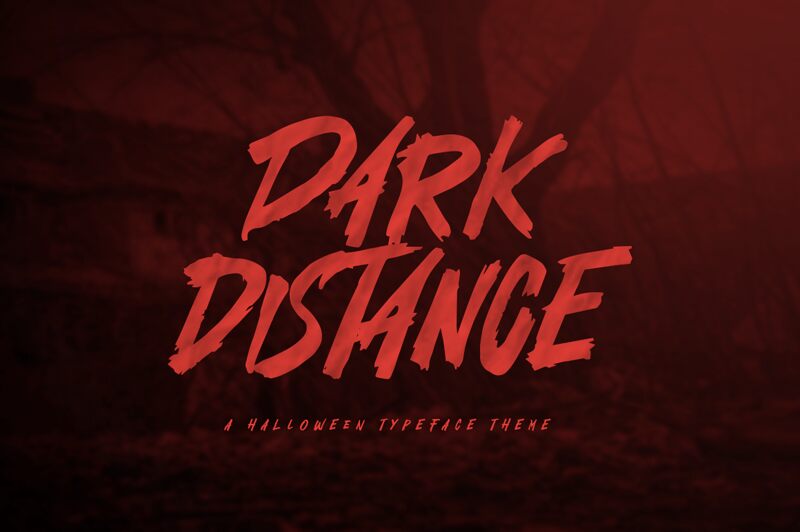
Dark Distance
Dark Distance is a captivating display font created by Khurasan. With its hauntingly beautiful brush style, this semi-bold typeface captures the essence of fear and mystery. Its sharp strokes and eerie curves make it perfect for projects that need to evoke a sense of darkness and suspense.
Whether you're designing spine-chilling posters for a horror movie, crafting spooky book covers, or creating bone-chilling Halloween invitations, Dark Distance will add an air of foreboding to your designs. Its unique combination of scare-inducing elements and artistic brushwork makes it a versatile choice for projects that require a touch of the macabre.
Get ready to immerse your audience in an otherworldly experience with Dark Distance – the ideal font for all things terrifying and thrilling.